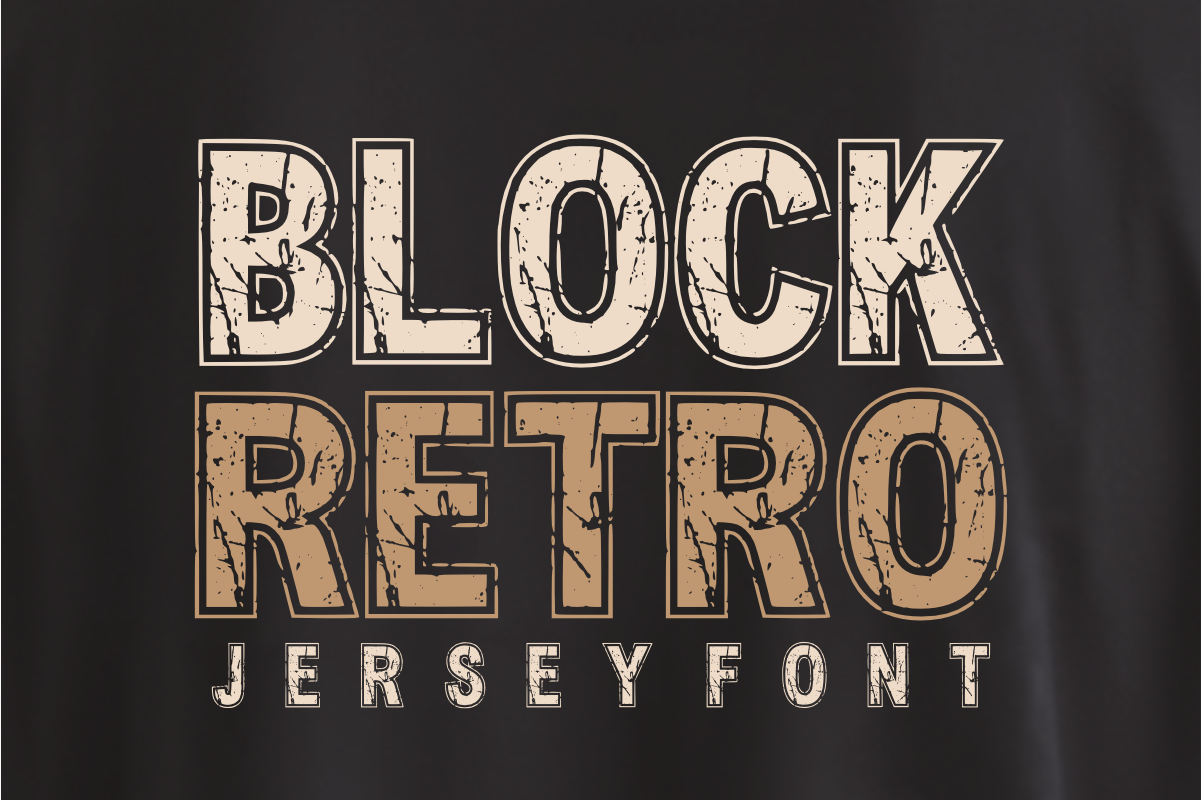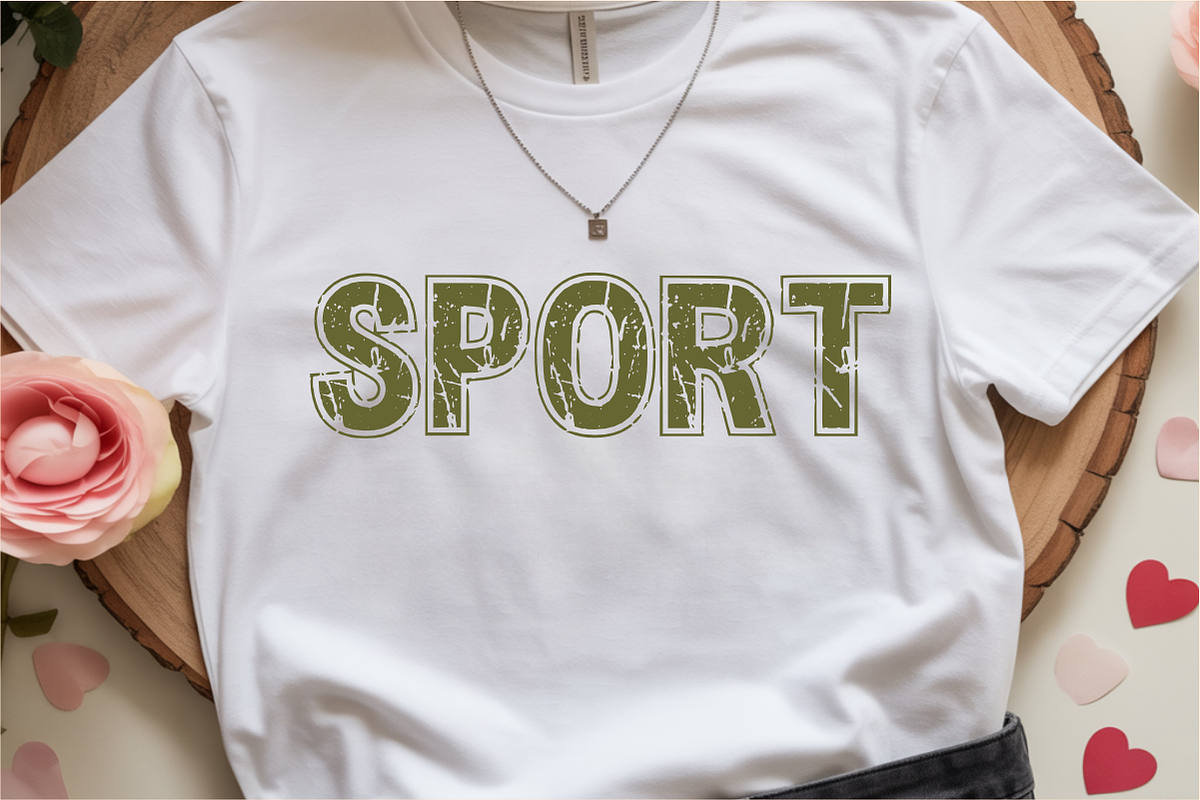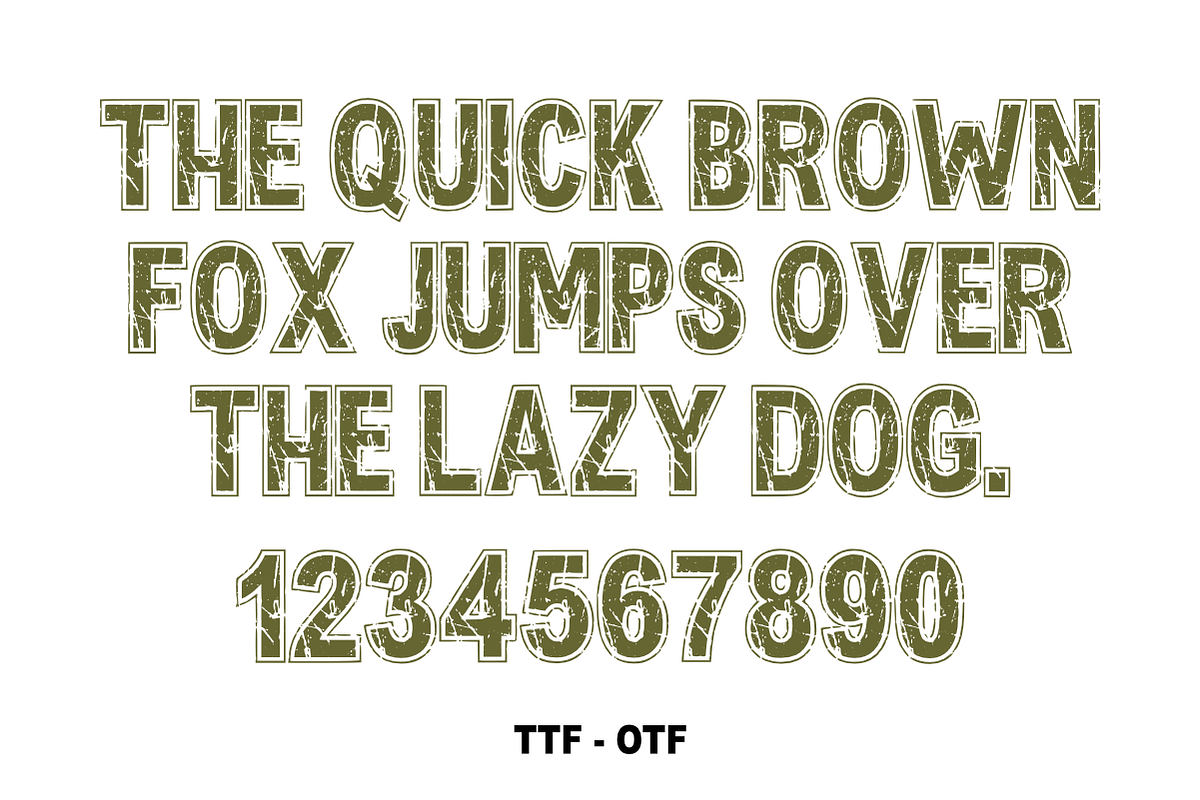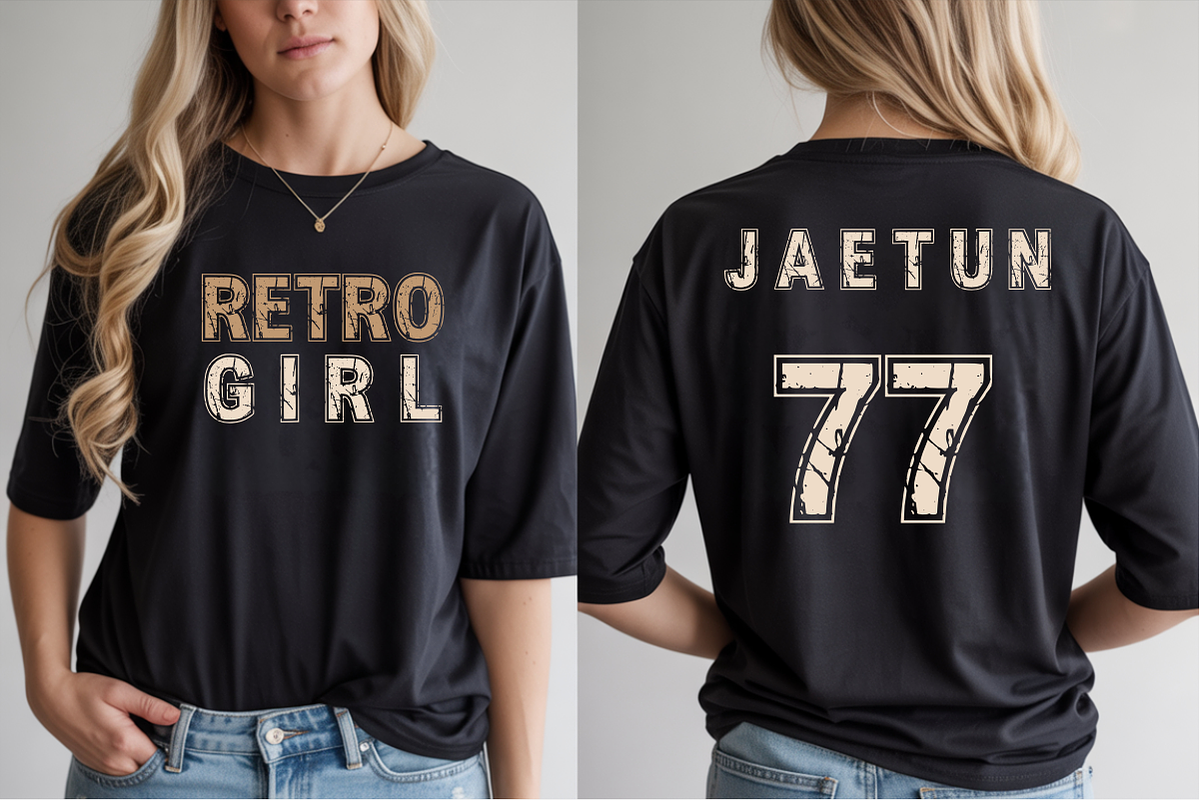
Block Retro -Distressed Varsity Font
Block Retro โ Distressed Varsity & Athletic Font ๐๐
Bring an authentic vintage sports vibe to your designs in seconds!
Block Retro is a bold, commanding display font inspired by classic collegiate sports and varsity jerseys. Featuring a heavy block silhouette and a meticulously crafted distressed/grunge texture, this font delivers an instant "aged" look without the need for extra filters. Itโs the perfect choice for designers who want to capture the rugged, high-energy spirit of vintage athletics and industrial branding.
๐ Why Block Retro is a Must-Have:
Authentic Grunge Texture: Every character is pre-textured with a weathered, cracked effect for a realistic vintage feel.
High-Impact Presence: Its thick, geometric structure ensures your headlines and titles are readable and command attention.
Versatile Athletic Style: Designed to look incredible on apparel, posters, and sports-themed branding projects.
๐จ Perfect For:
๐ Sports Jerseys & Apparel: Create professional-looking team gear, fan merchandise, and vintage-style t-shirts.
๐๏ธ Fitness & Gym Branding: Bold logos and motivational posters for athletic brands and supplements.
๐ฌ Media & Titles: Strong headers for YouTube thumbnails, social media graphics, and event flyers.
๐ฆ Packaging & Signage: Industrial-style labels, stickers, and rugged product packaging.
๐๏ธ Racing & Automotive: High-octane graphics for car clubs, racing events, and garage branding.